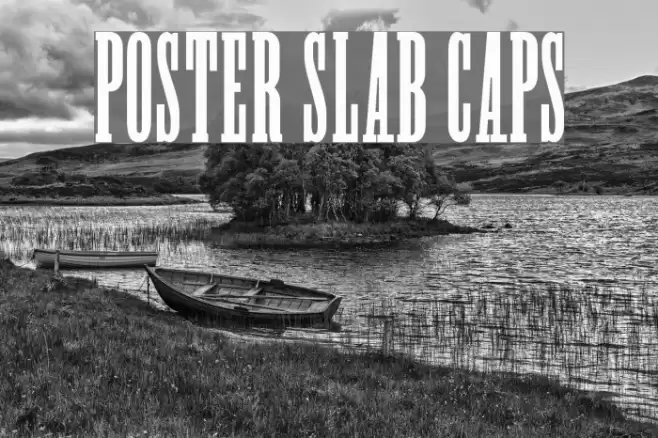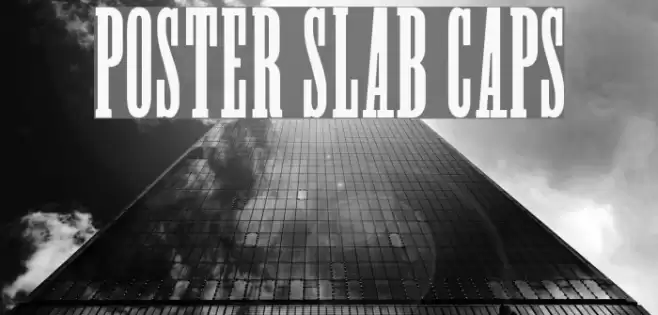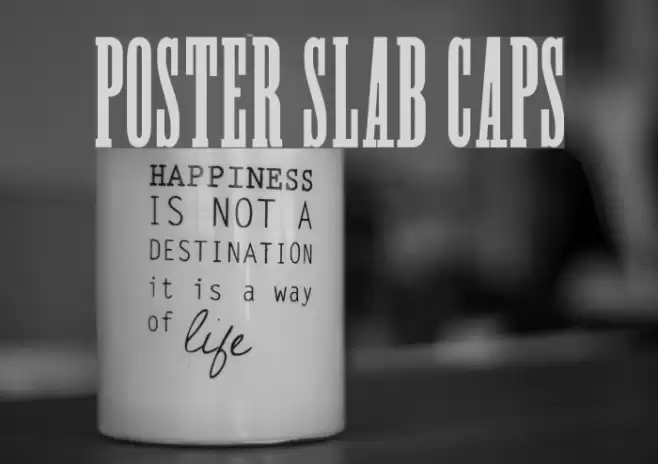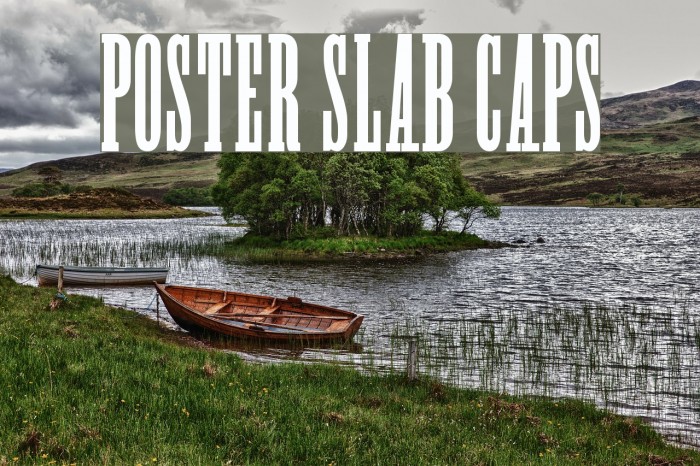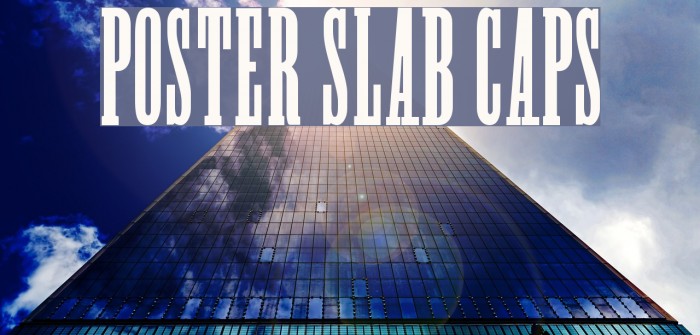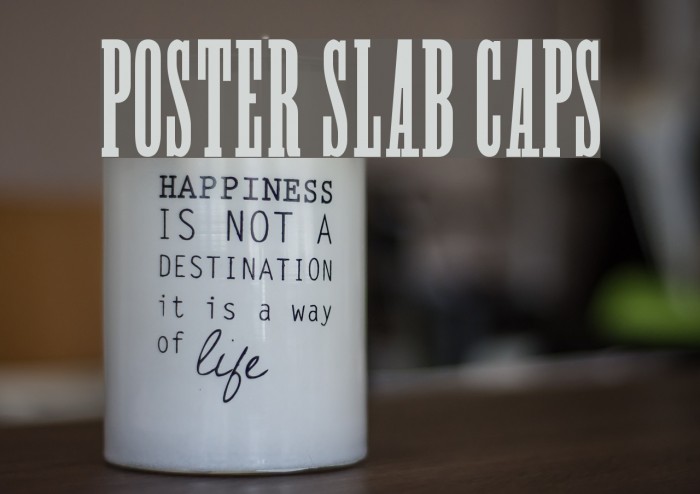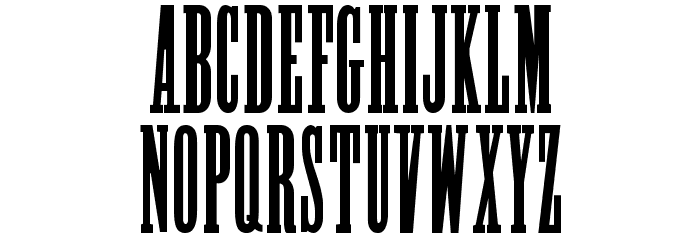
Poster Slab Caps Font
Poster Slab Caps Description
This font features bold, elongated characters with a strong slab serif style, giving it a commanding presence. The uppercase letters are tall and narrow, emphasizing verticality and strength. The serifs are thick and pronounced, adding a classic touch to the overall modern design. The font's bold weight and condensed width make it ideal for impactful headlines and titles. Its high contrast in stroke thickness enhances readability while maintaining a decorative appeal. The spacing between characters is tight, contributing to its compact and cohesive look.
Bold, elongated slab serif font with high contrast and tight spacing from Uncategorized fonts.
- Weight: Condensed
- Proposed Projects: Ideal for posters, headlines, branding, and any project requiring a strong, impactful typeface.
- Character Spacing: Tight